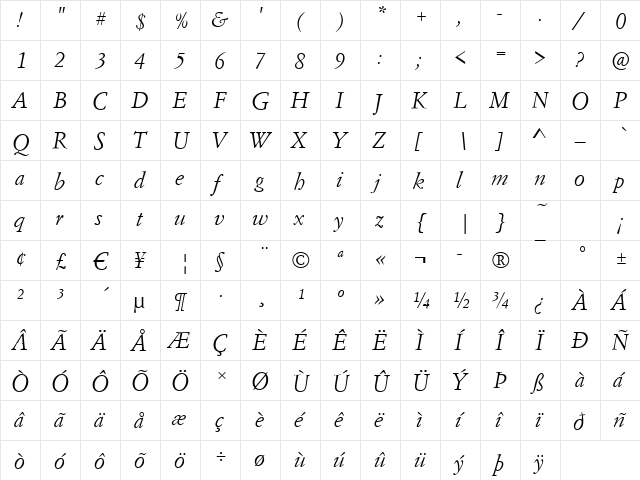
Italian-Garamond Italic
Design Context for Italian-Garamond Typeface
Italian-Garamond is a composed and adaptable typeface that performs quietly and consistently across a wide range of design contexts. The dynamic lean of this cut emphasises speed and emphasis in any layout.
Pro Tip: Try Italian-Garamond for annotation and caption copy alongside an upright companion — the contrast in angle creates a dynamic but ordered typographic system.